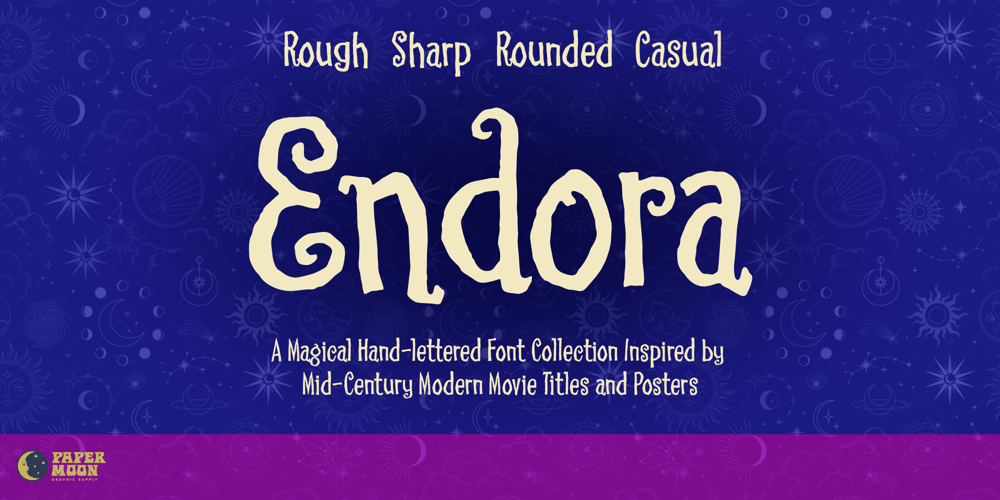
PM Endora Font Family was designed by Scott Banks and published by Paper Moon Type & Graphic Supply. PM Endora contains 5 styles and family package options. A new magical, mystical font family from Paper Moon Type & Graphic Supply. PM Endora was inspired by hand-lettered Mid-Century Modern movie titles and posters.Its mystical side makes it perfect for halloween and winter holiday marketing. Its casual side makes it a go to choice for weddings, specialty packaging, cosmetics, and modern lifestyle branding.